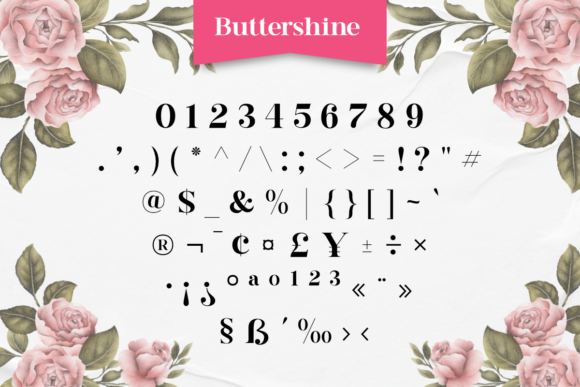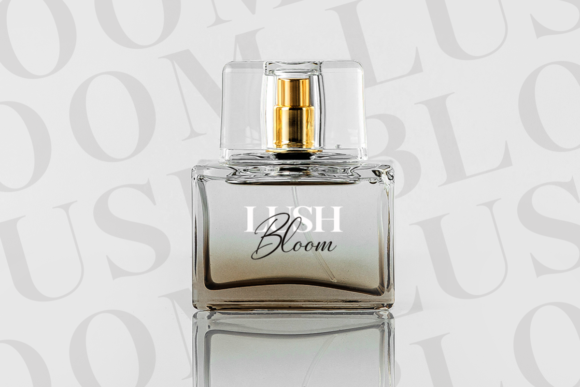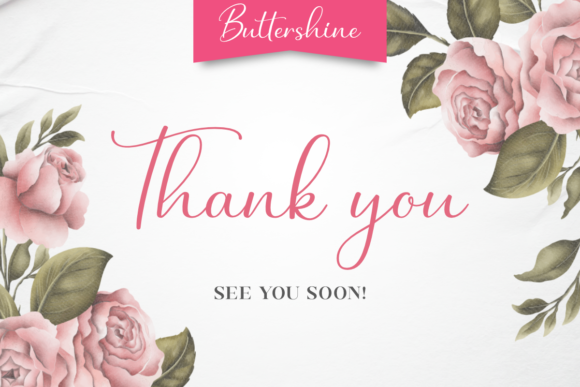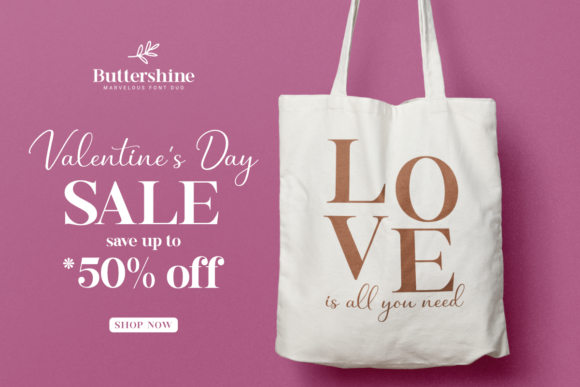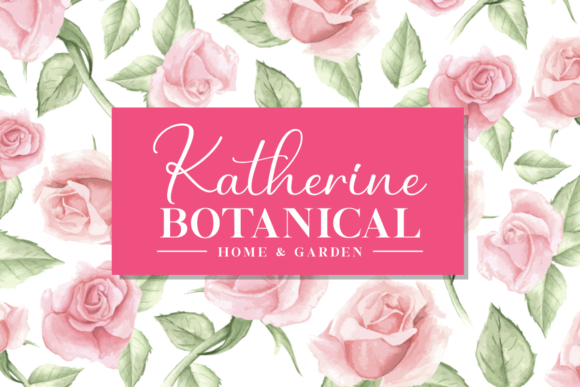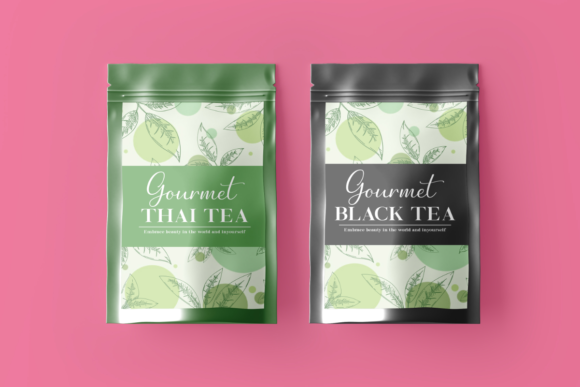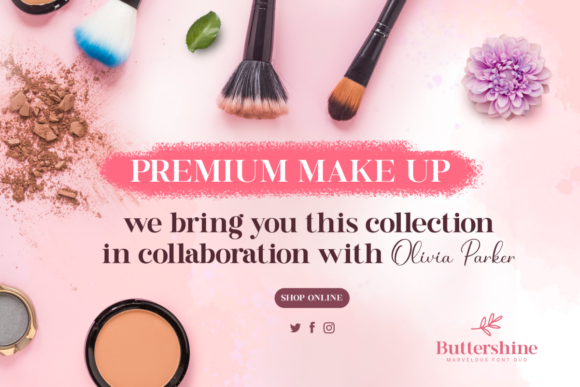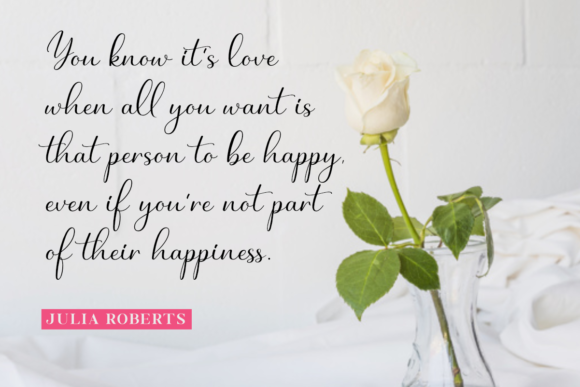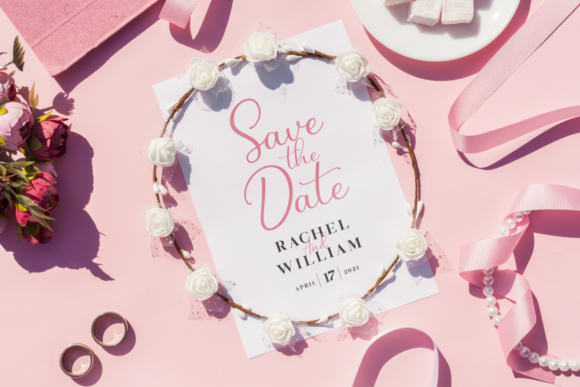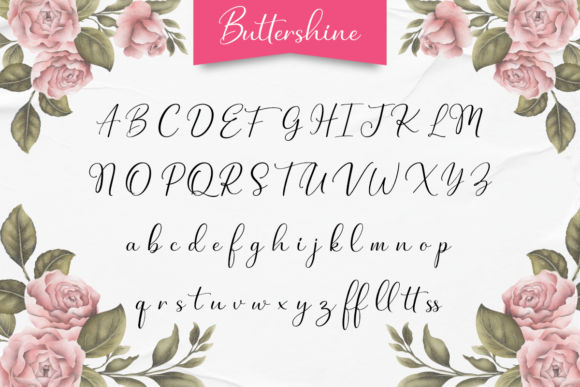
Buttershine Font
About Buttershine Font
Buttershine is a bold, beautiful and versatile duo font (serif and script). It looks beautiful on a variety of designs requiring a personalized style, such as wedding invitations, thank you cards, weddings, greeting cards, logos and so on.